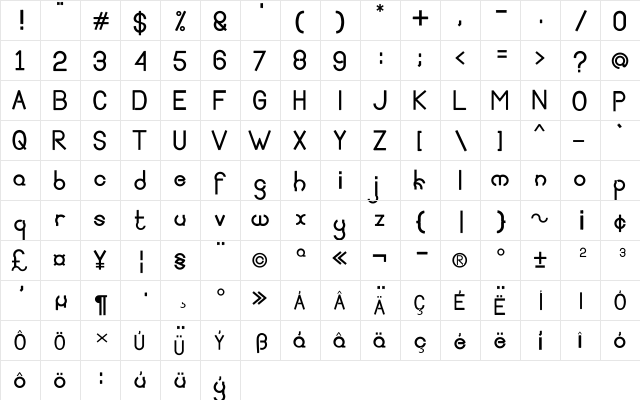
Shaka ingets Regular
| Foundry | Indra Gunawan |
| Designer | Indra Gunawan |
Design Context for Shaka ingets Typeface
Shaka ingets offers clean, dependable letterforms without strong stylistic allegiance, making it a practical choice for designers who need flexibility.